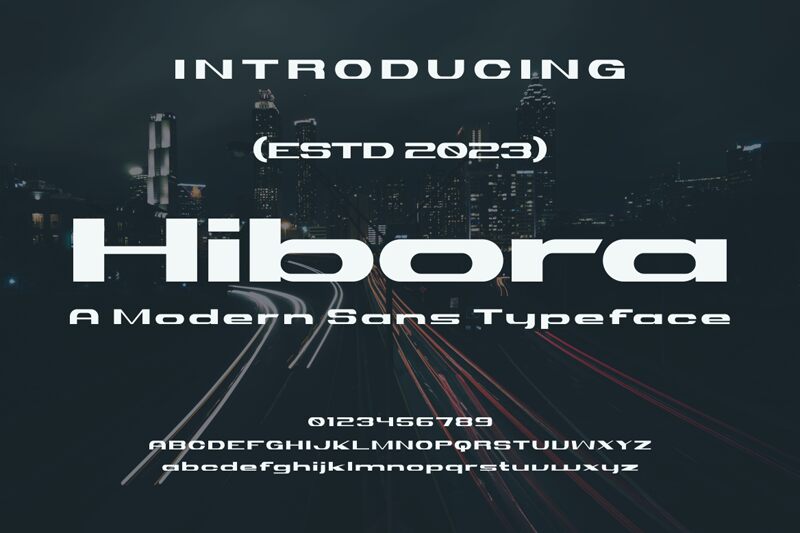
Hibora
Hibora, the bold and expansive sans-serif font crafted by Gilang Ternadho, exudes a striking presence. Its sharp edges and distinctive letterforms command attention, conveying a sense of strength and authority. This font's expanded width adds a modern, dynamic flair, making it an exceptional choice for bold headlines, impactful branding, and attention-grabbing designs.
Hibora's versatility shines through its adaptability to various design contexts. Whether used in editorial layouts, corporate communications, or digital interfaces, this font's assertive personality can elevate the visual impact of any project. Its bold, expanded form lends itself well to headings, call-to-actions, and other display elements, making it a compelling choice for brands seeking to make a lasting impression.